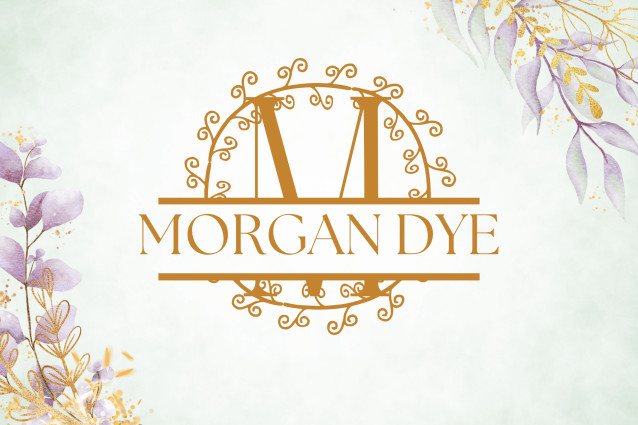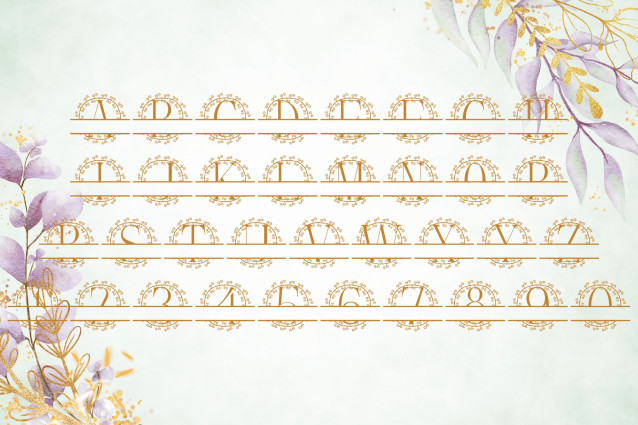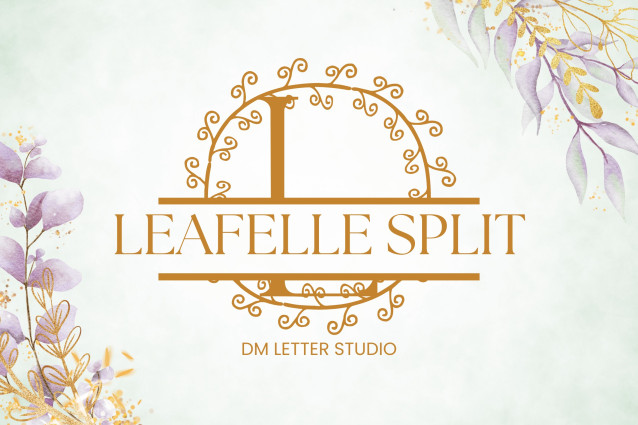
Leafelle Split Font
Leafelle Split Font is a charming serif split monogram font featuring beautifully balanced letterforms and whimsical leaf accents. Each uppercase letter includes a graceful horizontal divide, creating space for custom names, initials, or meaningful words—ideal for personalized crafts, wedding signage, and DIY gifts. The botanical flourishes add a soft, organic touch to your design.